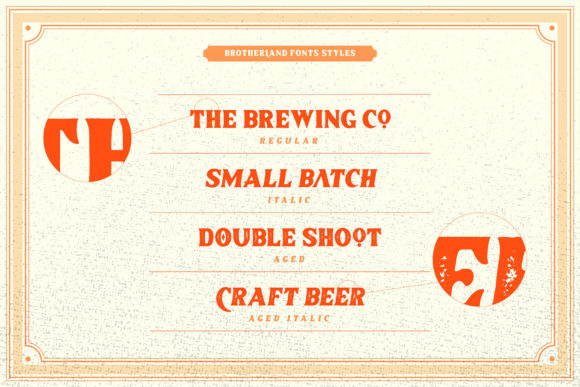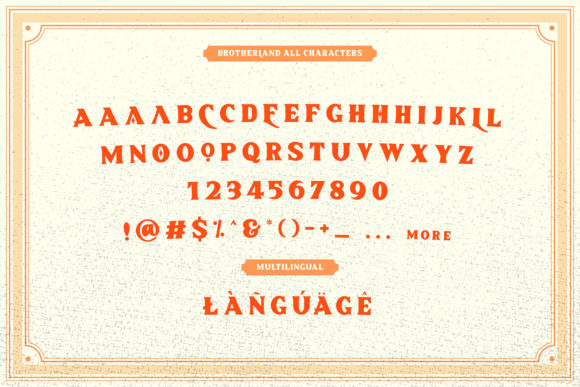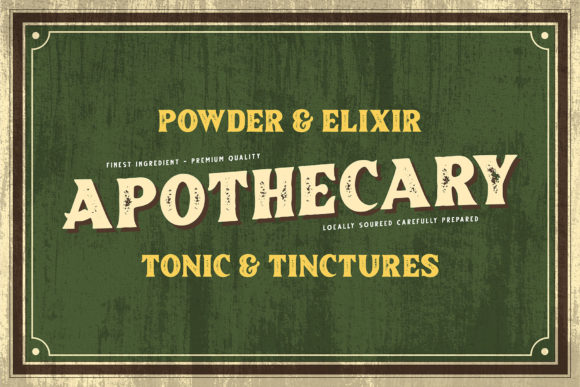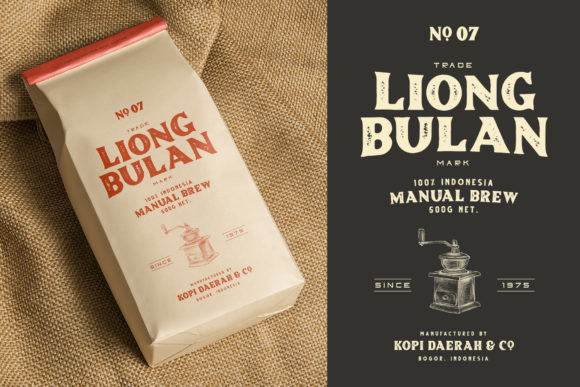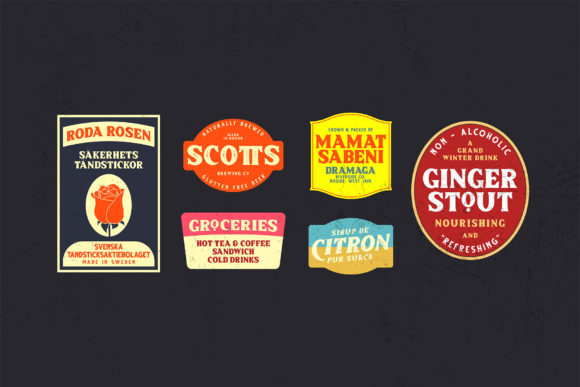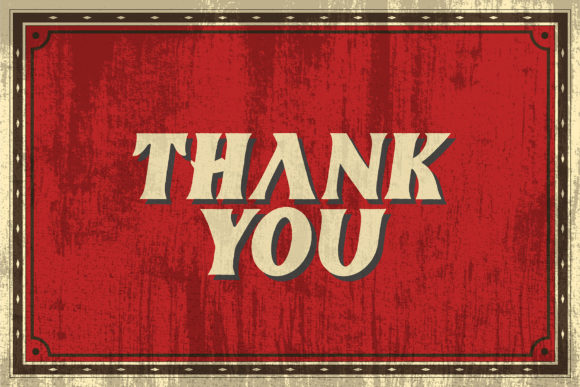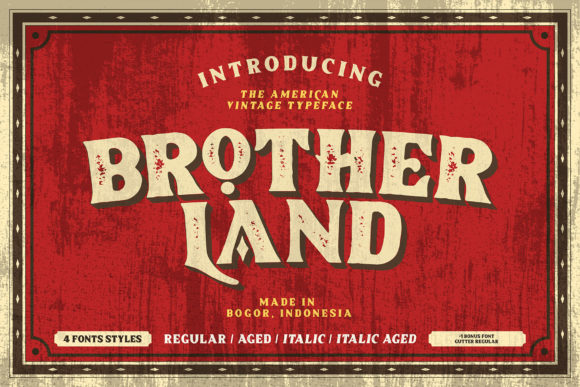
Introducing Brotherland Font: A Timeless Classic Inspired by American Vintage Typography
Are you a designer or crafter looking for a font that exudes a sense of nostalgia and classic charm? Look no further than Brotherland Font, a beautiful display font inspired by the simplicity and elegance of American vintage typography. With its clean and straightforward style, Brotherland Font is the perfect addition to any design project, from logos and branding to packaging and advertising.
The Inspiration Behind Brotherland Font
Brotherland Font draws its inspiration from the rich history of American typography, specifically the classic fonts of the early 20th century. During this time, typography was characterized by simplicity, bold lines, and a sense of ruggedness that reflected the country’s industrial and optimistic spirit. Brotherland Font captures the essence of this era, with a simple yet distinctive style that is both nostalgic and timeless.
Key Features of Brotherland Font
So, what makes Brotherland Font so special? Here are a few key features that set it apart:
- Classic Display Font: Brotherland Font is a display font, designed to make a statement and grab attention. Its bold lines and simple shapes make it perfect for use in headlines, titles, and other display text.
- American Vintage Inspiration: Brotherland Font is inspired by the typography of America’s past, giving it a unique and distinctive character that is both nostalgic and timeless.
- Simple yet Distinctive: Despite its simplicity, Brotherland Font has a distinctive character that sets it apart from other fonts. Its clean lines and shapes make it easy to read, while its bold style ensures it stands out.
- Versatile: Brotherland Font is incredibly versatile, making it suitable for use in a wide range of design projects, from logos and branding to packaging and advertising.
Using Brotherland Font in Your Design Projects
So, how can you use Brotherland Font in your design projects? Here are a few ideas to get you started:
- Logos and Branding: Use Brotherland Font to create a bold and eye-catching logo that reflects your brand’s personality and style.
- Packaging Design: Add a touch of nostalgia to your packaging design with Brotherland Font, perfect for food labels, product packaging, and more.
- Advertising: Use Brotherland Font to create attention-grabbing headlines and titles for your advertising campaigns, whether print, digital, or outdoor.
- Signage: Brotherland Font is perfect for use in signage, from store signs to billboards and more.
Why Choose Brotherland Font?
With so many fonts to choose from, why should you choose Brotherland Font? Here are just a few reasons:
- Unique Character: Brotherland Font has a unique and distinctive character that sets it apart from other fonts.
- Timeless Appeal: Brotherland Font has a timeless appeal that ensures it will never go out of style.
- Versatility: Brotherland Font is incredibly versatile, making it suitable for use in a wide range of design projects.
- Easy to Read: Despite its bold style, Brotherland Font is easy to read, making it perfect for use in a variety of applications.
In conclusion, Brotherland Font is a classic display font inspired by American vintage typography. With its simple style and distinctive character, it’s the perfect addition to any design project. Whether you’re a designer or crafter, Brotherland Font is sure to inspire and elevate your work. So why wait? Download Brotherland Font today and start creating something truly special!